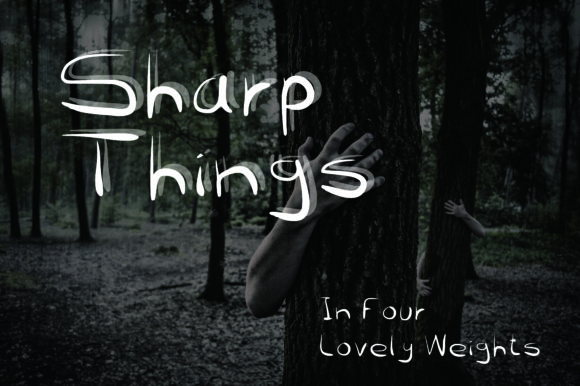
Sharp Things Font
Prepare to dive into the captivating world of Sharp Things Font, where darkness meets elegance. This extraordinary script font, meticulously crafted by GraphicsBam Fonts, is not for the faint of heart. Its distinctively sharp features, harmoniously blended with subtle rounded elements, exude an eerie allure that will cast a spell on your designs.
Unleash your creativity with Sharp Things' captivating style, perfect for evoking a spine-tingling ambiance. Whether you're conjuring up invitations for a haunting Halloween party or crafting eye-catching posters for your next horror movie marathon, this font will send shivers down your audience's spines. Its dark and enigmatic aura will leave an unforgettable impression that lingers long after the credits roll.
But Sharp Things is not merely a font for the macabre. Its versatility extends far beyond the realm of horror, lending a touch of mystery and intrigue to a wide spectrum of design projects. From alluring logos that command attention to enchanting social media posts that captivate your followers, the possibilities are endless.
Embrace the power of Sharp Things and watch as your designs transform into works of art that speak volumes. Its ability to convey both elegance and unease makes it an indispensable tool for any designer seeking to create truly memorable and impactful creations.
With Sharp Things Font at your fingertips, you'll possess the key to unlocking a world of captivating designs that will leave an everlasting mark. Its unique charm and versatility will empower you to craft projects that ignite imaginations and leave your audience spellbound.